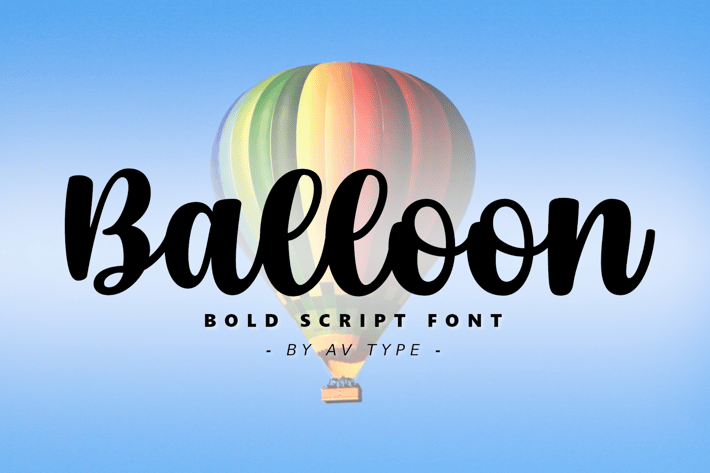
Balloon Script Font
Balloon is a bold script font with a fun and energetic vibe, designed to bring personality and warmth to any project. Its smooth curves and thick strokes make it perfect for branding, handmade product packaging, social media posts, and bold typographic statements.
This font is a great choice for creatives who want to add a cheerful and approachable tone to their work.
Key Features:
- Bold script with smooth and rounded strokes
- Ideal for logos, posters, and playful branding
- Retro-inspired with a modern twist
- Great legibility for display use
- Uppercase & lowercase letters
- Punctuation and numerals included
- Supports multilingual characters
Balloon adds a friendly and fun personality to any design with its bold and stylish script.